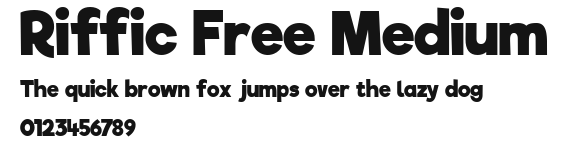
• Font Name: Riffic Free Medium
• Designer: Inkyotter Design
About Riffic Free Medium.ttf
Riffic Free Medium.ttf is a modern, elegant sans-serif font designed for ultimate readability and visual harmony. Perfect for branding, headlines, web design, and print materials.